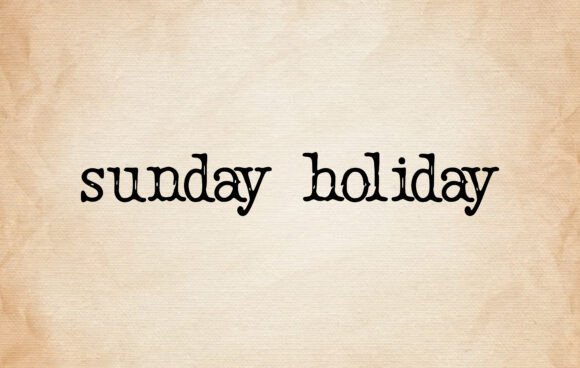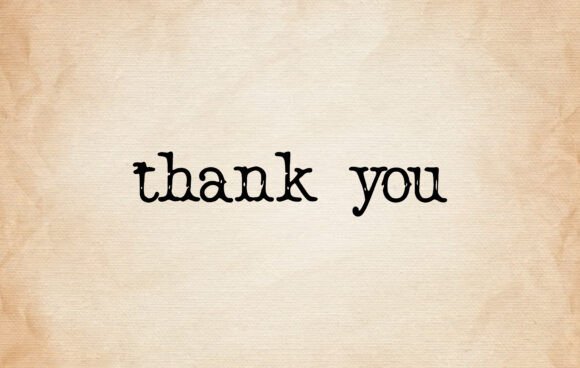
Blessful Hush Font: Elevate Your Designs with Elegance and Versatility
In the world of typography, a font can make or break a design. It’s the foundation upon which creativity is built, and the right choice can elevate a project from ordinary to extraordinary. This is where the Blessful Hush Font comes into play, a stunning typeface designed to be a true favorite among designers and crafters. With its unique blend of legibility and style, this font has the potential to take your creative ideas to the highest level.
Designed for Versatility
The Blessful Hush Font is crafted with versatility in mind. Its design ensures that it looks great not only as a title but also as body text. This dual capability makes it an excellent choice for a wide range of design projects. Whether you’re working on magazine headlines, t-shirts, social media graphics, branding materials, wedding invitations, or cards, this font is perfect for many different designs.
Key Features of Blessful Hush Font
- Legibility: One of the standout features of the Blessful Hush Font is its exceptional legibility. In today’s fast-paced digital world, clarity is key. This font ensures that your message is conveyed clearly, whether it’s in a headline or body text.
- Elegance: The font boasts an elegant design that can add a touch of sophistication to any project. Its stylish appearance makes it suitable for designs that require a bit of flair, such as wedding invitations and luxury branding.
- Versatility: As mentioned, its versatility is unmatched. It can seamlessly transition from digital platforms like social media and websites to print materials like t-shirts and cards.
Applications of Blessful Hush Font
The applications of the Blessful Hush Font are vast and varied. Here are some of the areas where it truly shines:
- Magazine Headlines: Create eye-catching headlines that draw readers in. The font’s stylish and clear design makes it perfect for magazine covers, article titles, and even section dividers.
- T-Shirts and Apparel: Design custom apparel that stands out. The Blessful Hush Font’s unique style ensures that your message or logo looks great on t-shirts, hoodies, and other clothing items.
- Social Media Graphics: Enhance your social media presence with graphics that pop. This font can be used to create engaging posts, stories, and banners that capture attention.
- Branding and Logo Design: Establish a strong brand identity with a font that communicates elegance and professionalism. It’s ideal for logos, business cards, and letterheads.
- Wedding Invitations and Cards: Add a touch of elegance to your wedding invitations, greeting cards, and thank-you notes. The font’s sophisticated design makes it perfect for any special occasion.
Why Choose Blessful Hush Font?
Choosing the right font for your project can be daunting, but here are a few reasons why the Blessful Hush Font stands out:
- Unique Style: It offers a unique style that can set your designs apart from the crowd.
- High Legibility: Ensures your message is clear and easily readable.
- Versatile: Suitable for a wide range of projects, from digital graphics to print materials.
The Blessful Hush Font is a powerful tool for designers and crafters looking to elevate their projects. Its blend of elegance, legibility, and versatility makes it an excellent choice for a myriad of design applications. Whether you’re a professional designer or a DIY enthusiast, this font has the potential to bring your creative ideas to life in a stylish and impactful way. So, why settle for ordinary when you can create something truly extraordinary with the Blessful Hush Font?